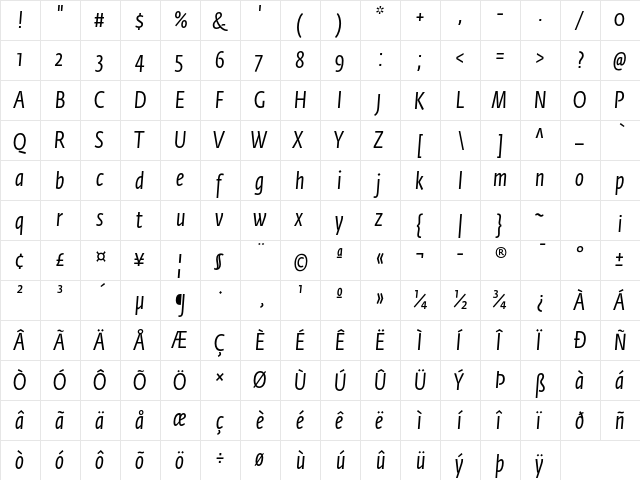
Fedra Sans Condensed Std Book Italic Font Preview
| Foundry | Typotheque type foundry |
| Designer | Peter Bilak https://www.typotheque.com) |
Design Context for Fedra Sans Condensed Std Typeface
Fedra Sans Condensed Std takes a measured approach to typography — its balanced proportions and neutral character make it a reliable workhorse for both digital and print work. The dynamic lean of this cut emphasises speed and emphasis in any layout. The condensed width makes it efficient for tight spaces without sacrificing legibility.
Pro Tip: Use Fedra Sans Condensed Std for emphasis, pull quotes, and subheadings where its slanted energy can add rhythm to the layout.